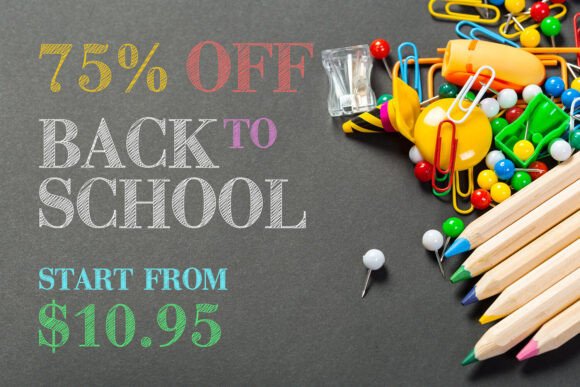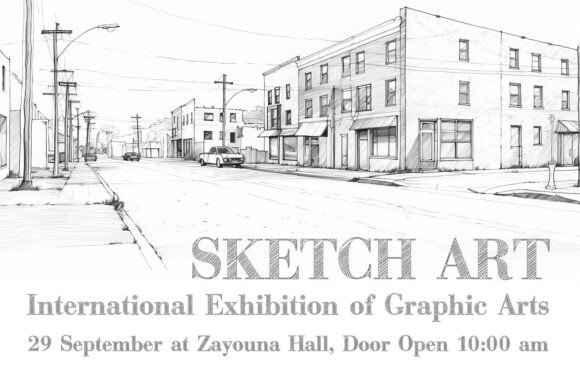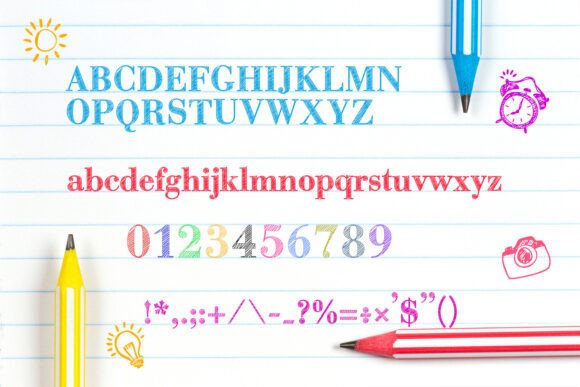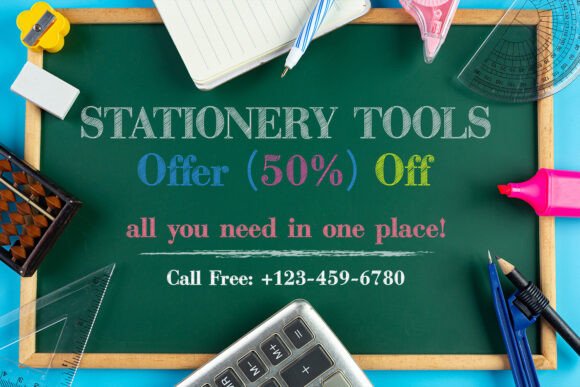
Introducing Chalktastic Font: A Bold and Elegant Serif Font with a Touch of Classroom Nostalgia
In the world of typography, fonts play a crucial role in conveying the tone and personality of a design. If you’re looking for a font that brings a touch of classroom nostalgia and creative elegance to your projects, look no further than Chalktastic Font. This bold, chalkboard-inspired serif font is perfect for designers and crafters who want to add a unique and stylish touch to their work.
What is Chalktastic Font?
Chalktastic Font is a hand-drawn, chalkboard-inspired serif font that features a bold and elegant style. With its textured, hand-drawn look, this font brings a touch of nostalgia and playfulness to any design. Whether you’re working on a poster, menu, logo, or invitation, Chalktastic Font is the perfect choice for adding a touch of personality and flair.
Key Features of Chalktastic Font
- Bold and Elegant Style: Chalktastic Font features a bold and elegant style that’s perfect for making a statement.
- Hand-Drawn Texture: The font’s hand-drawn texture gives it a unique, chalkboard-inspired look that’s both nostalgic and stylish.
- Versatile Style: Chalktastic Font is versatile and can be used for a wide range of projects, from posters and menus to logos and invitations.
- Easy to Read: Despite its bold style, Chalktastic Font is easy to read, making it perfect for both professional and personal use.
Uses of Chalktastic Font
Chalktastic Font is perfect for a wide range of projects, including:
- Posters: Add a touch of personality and flair to your posters with Chalktastic Font.
- Menus: Give your menus a unique and stylish look with Chalktastic Font.
- Logos: Create a bold and memorable logo with Chalktastic Font.
- Invitations: Add a touch of elegance and sophistication to your invitations with Chalktastic Font.
- Crafting Projects: Chalktastic Font is perfect for crafters who want to add a personal touch to their projects.
Why Choose Chalktastic Font?
There are many reasons why Chalktastic Font is the perfect choice for designers and crafters. Here are just a few:
- Unique Style: Chalktastic Font features a unique and stylish design that’s sure to make your projects stand out.
- Versatility: The font’s versatile style makes it perfect for a wide range of projects.
Tips for Using Chalktastic Font
Here are a few tips for using Chalktastic Font:
- Use it as a Headline Font: Chalktastic Font is perfect for use as a headline font, where its bold style can really make an impact.
- Pair it with Other Fonts: Chalktastic Font pairs well with other fonts, so feel free to experiment with different combinations.
- Use it for Body Text: While Chalktastic Font is bold, it’s also easy to read, making it perfect for use as a body text font.
In conclusion, Chalktastic Font is a bold and elegant serif font that’s perfect for designers and crafters who want to add a touch of classroom nostalgia and creative elegance to their projects. With its hand-drawn texture and versatile style, this font is perfect for a wide range of projects, from posters and menus to logos and invitations. Whether you’re working on a professional or personal project, Chalktastic Font is the perfect choice for stylish and eye-catching typography.